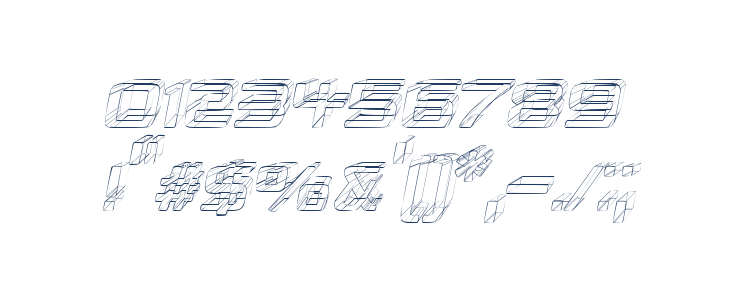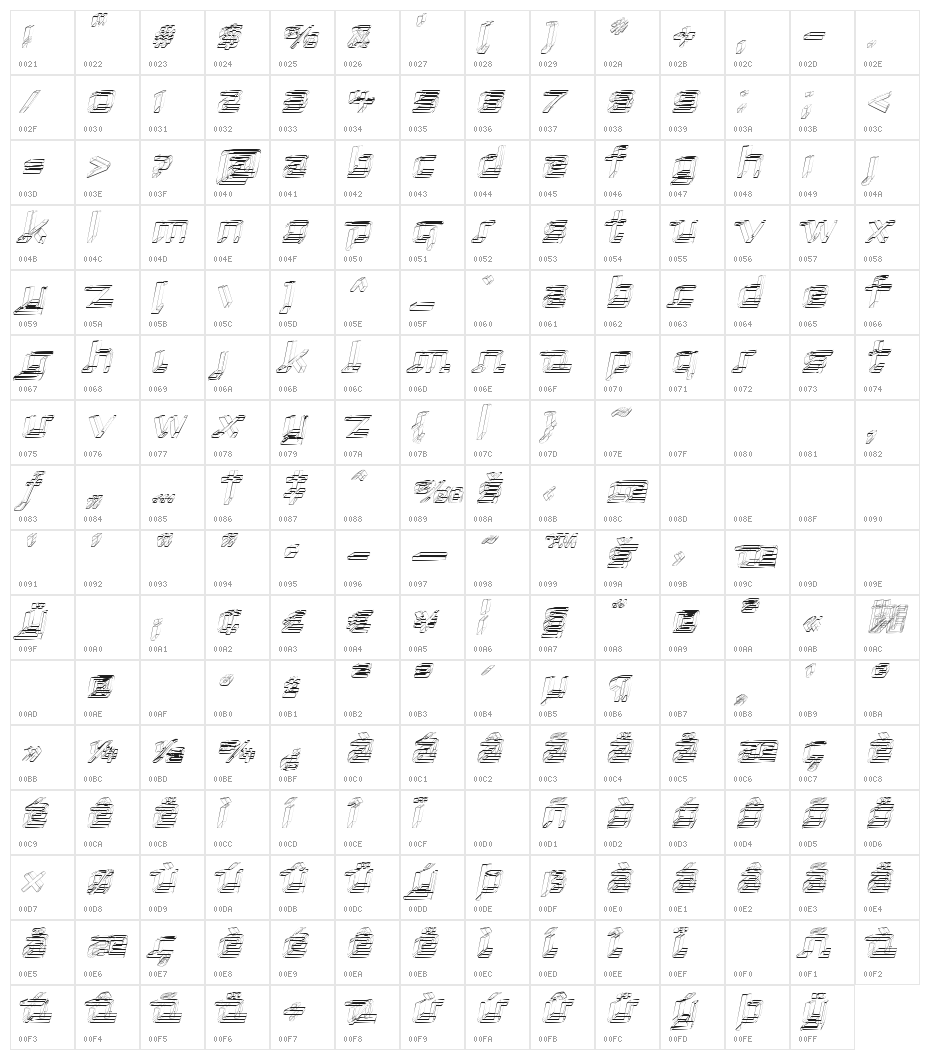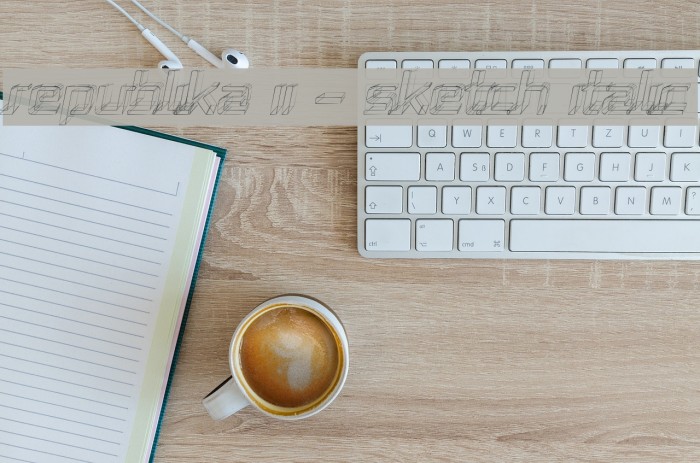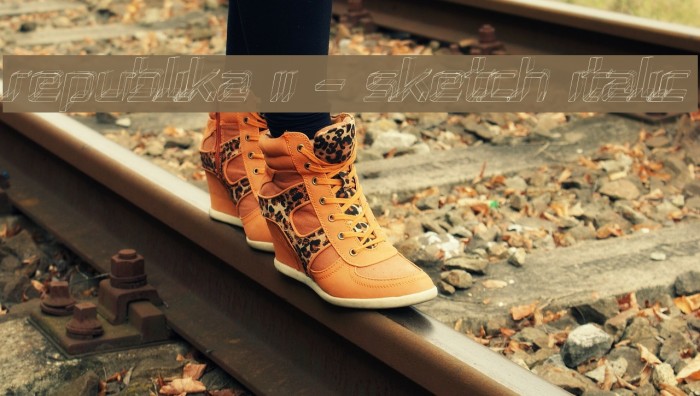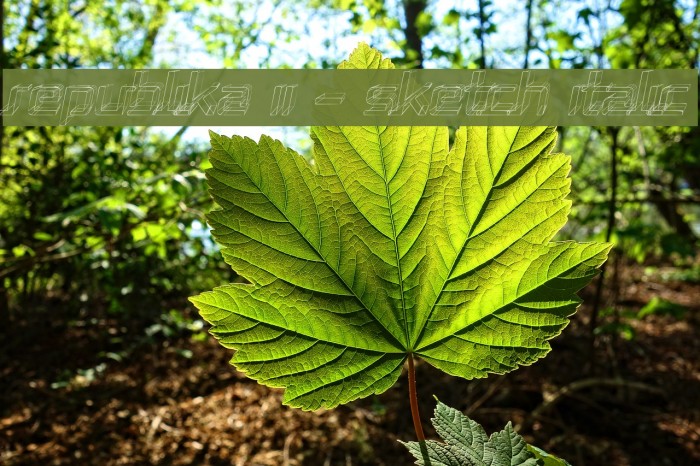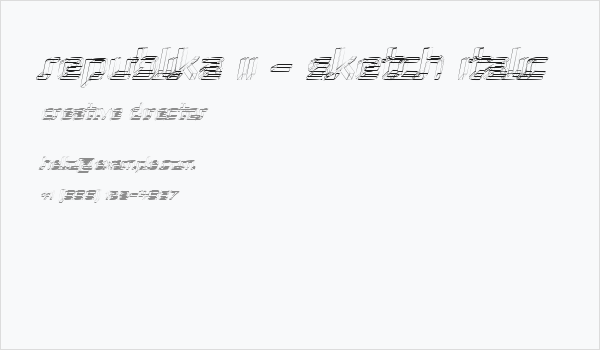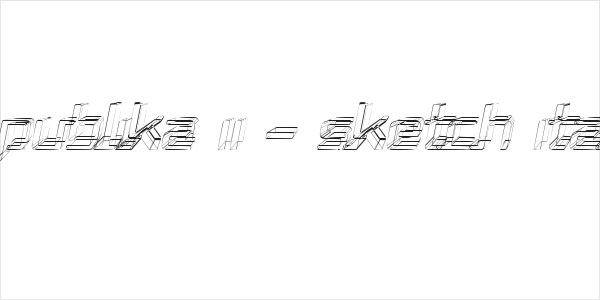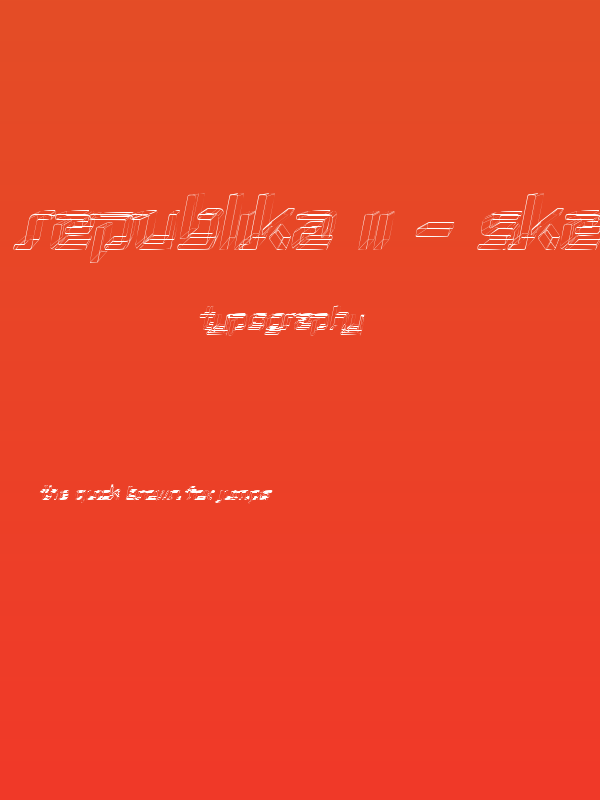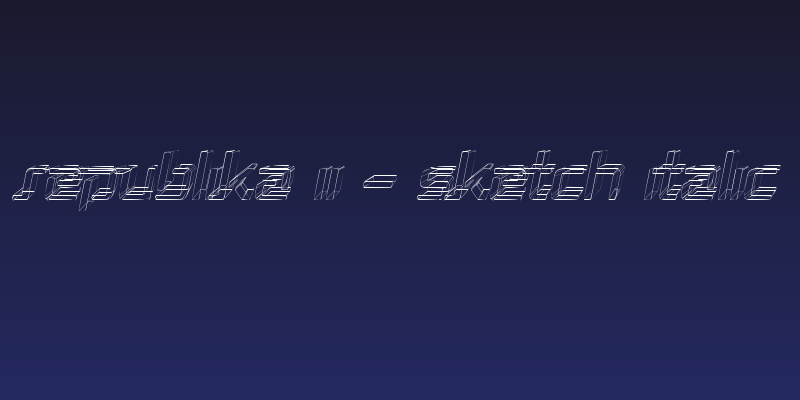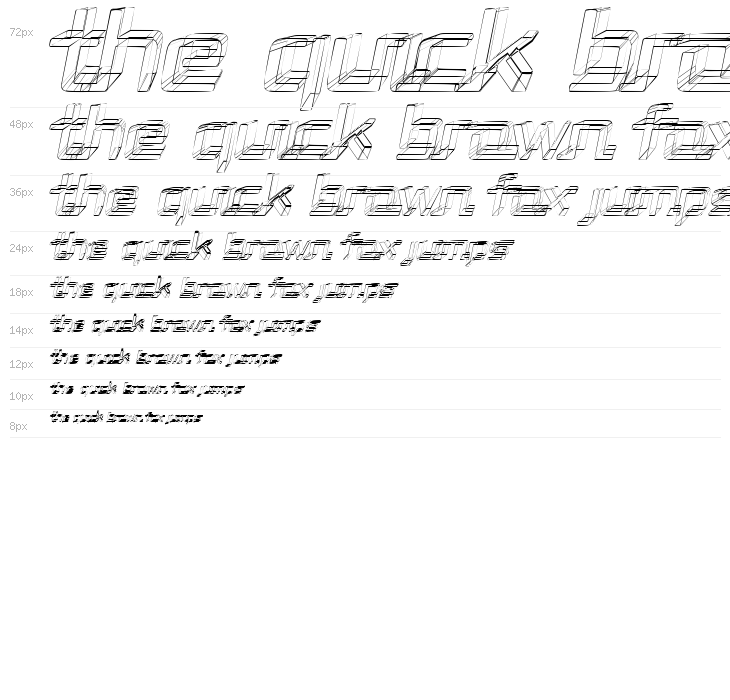
Republika II - Sketch Italic Font
Republika II - Sketch Italic Description
This font features a unique sketch-like design with an italic slant, giving it a dynamic and artistic appearance. The characters are outlined with a double-line effect, creating a sense of depth and movement. The angular and geometric shapes of the letters add a modern and edgy feel, while the italic style enhances its fluidity. The font maintains a consistent structure across uppercase, lowercase, numbers, and special characters, making it versatile for various design applications. Its sketchy outline and bold presence make it suitable for creative and expressive projects.
Proposed ProjectsIdeal for artistic posters, creative branding, modern art projects, and edgy editorial designs.